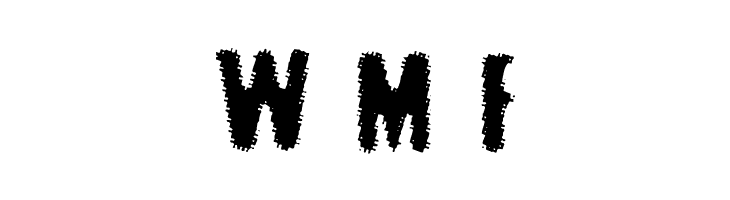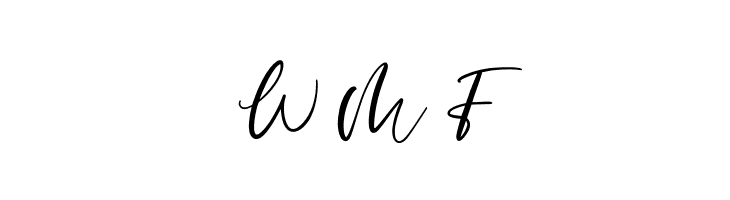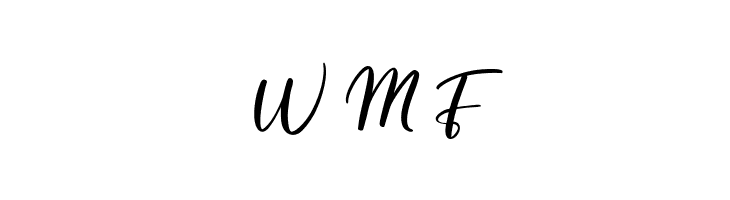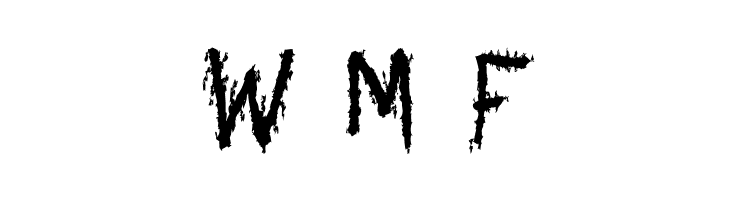
• AC
( Fonts by Alan Carr )
A playful, bold font with rounded, bubble-like characters.
• Acceleration & Reaction
A bold, cursive script font with dynamic, sweeping strokes and elegant flourishes.
• Ace Crikey
• Acheron Free
• acid_reflux
A bold, distressed font with a grungy, energetic texture.
• Ackbar
A bold, rounded font with a strong, cohesive presence.
• Acquaintance
A bold, textured font with a rugged, hand-drawn appearance.
• Acronits Free Regular
A lively and elegant script font with fluid, cursive strokes and graceful curves.
• Acrosmyth Free
An elegant, flowing script font with interconnected cursive strokes.
• Action Comcs Black
Bold, angular font with a dynamic, comic book style.